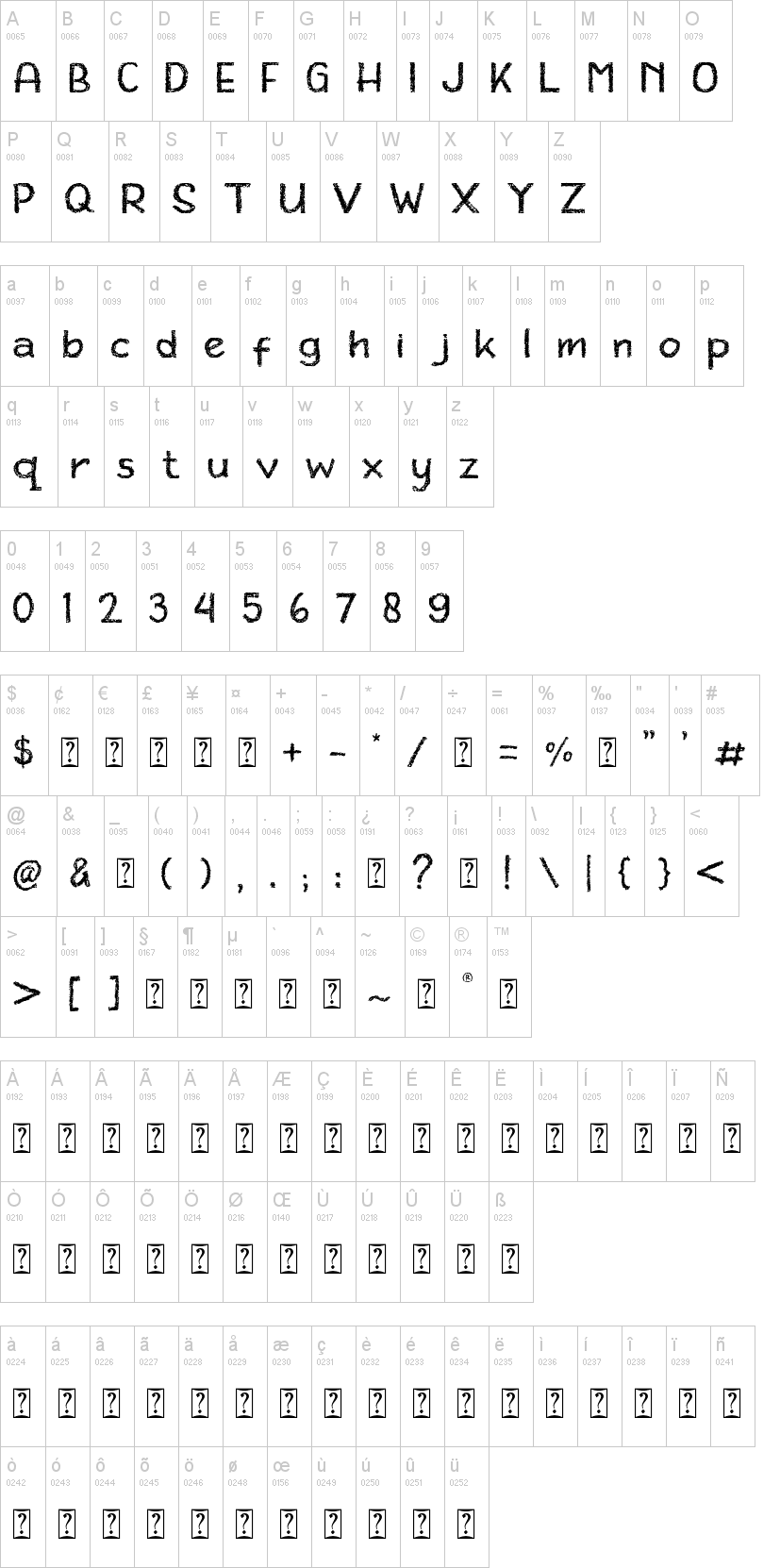
Note of the authorThe Crayone is a chalky sans. Its an unique font that is handwritten with crayon pastels.
It can be used for cafe or coffee shop menu lists, branding, photography, watermarks, advertisements, product designs, labels, product packaging, book content, quotes and much more!